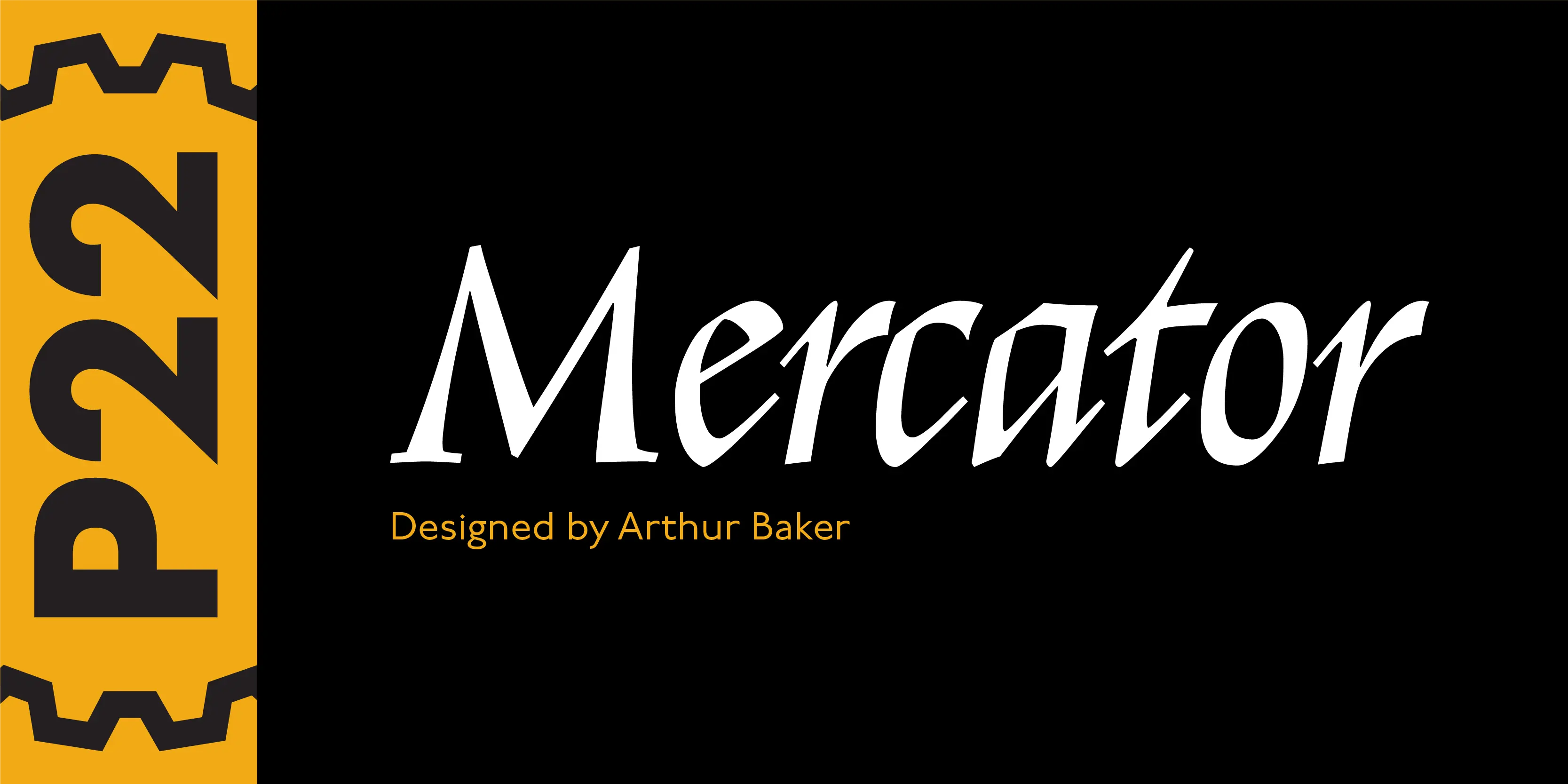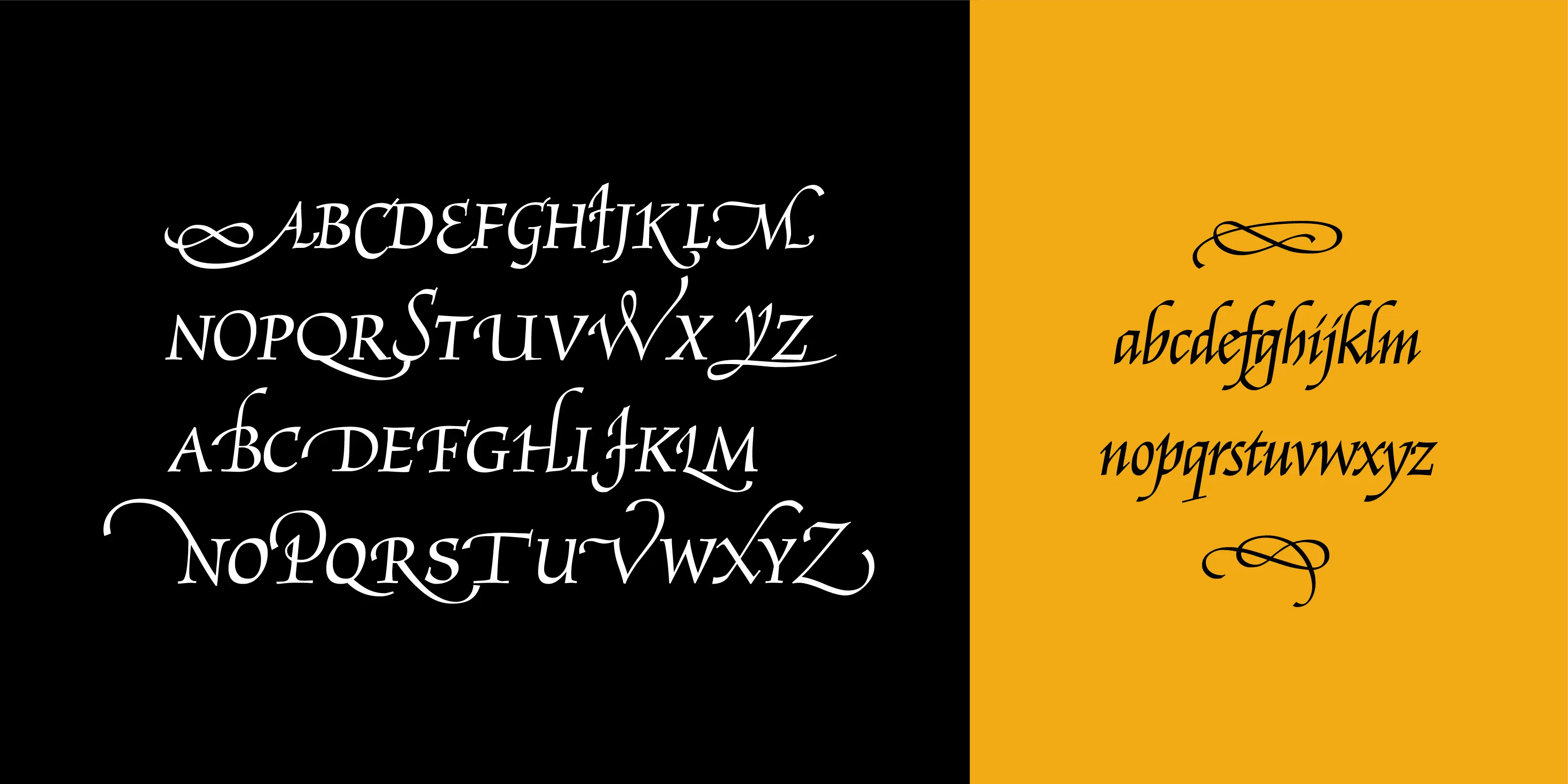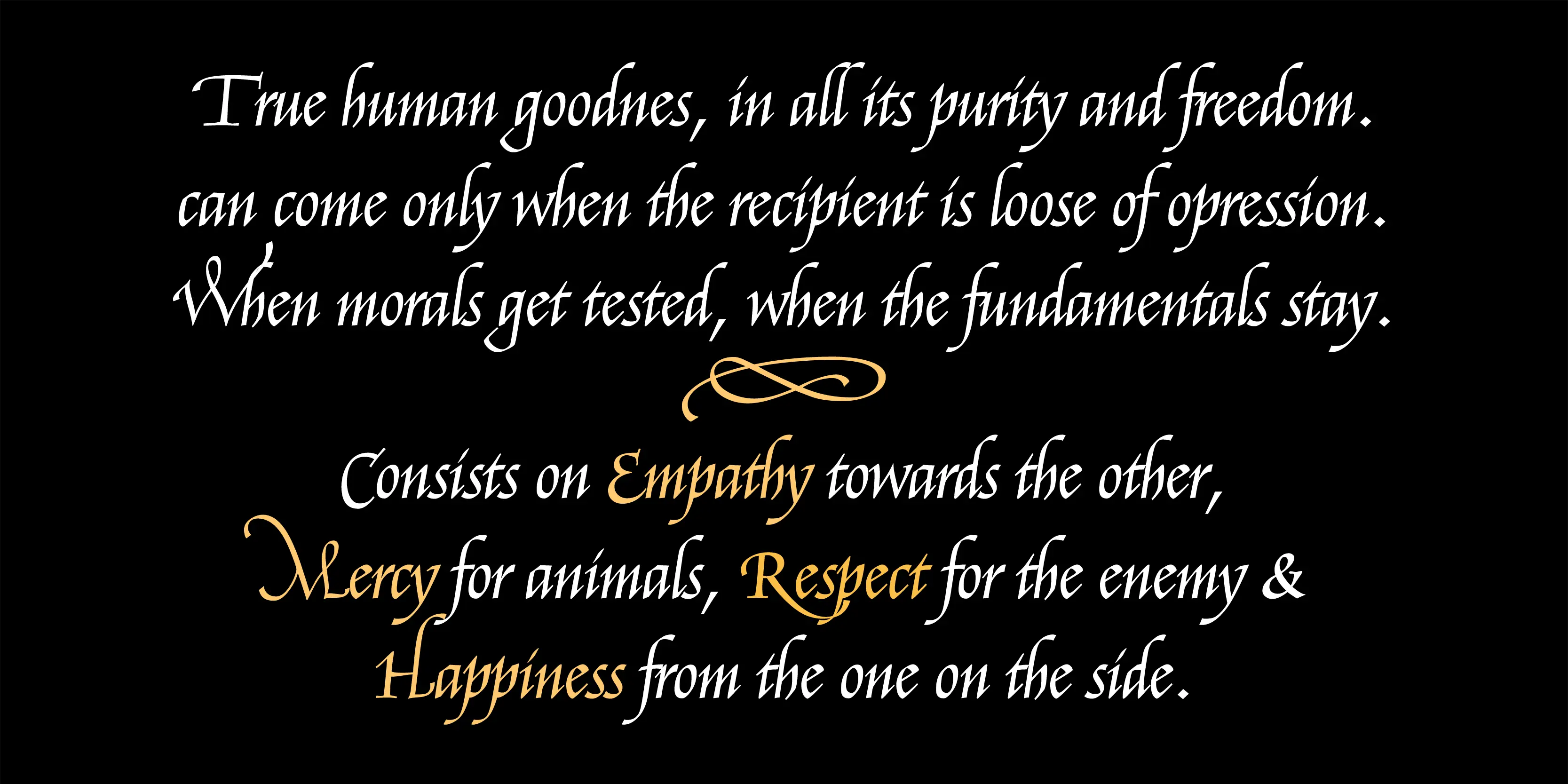
Mercator Font Family
• Mercator Regular
• Mercator Swash
Mercator
P22 Mercator is a distinct variation of a Chancery script based on the hand-lettering of Gerardus Mercator, the great 15th-century map maker. Arthur Baker demonstrates his love of beauty through this typeface, and joy can be seen in each letter. Typographers and graphic designers can use Mercator to give a natural rhythm to their book covers, invitations, certificates, packaging, posters, and maps.